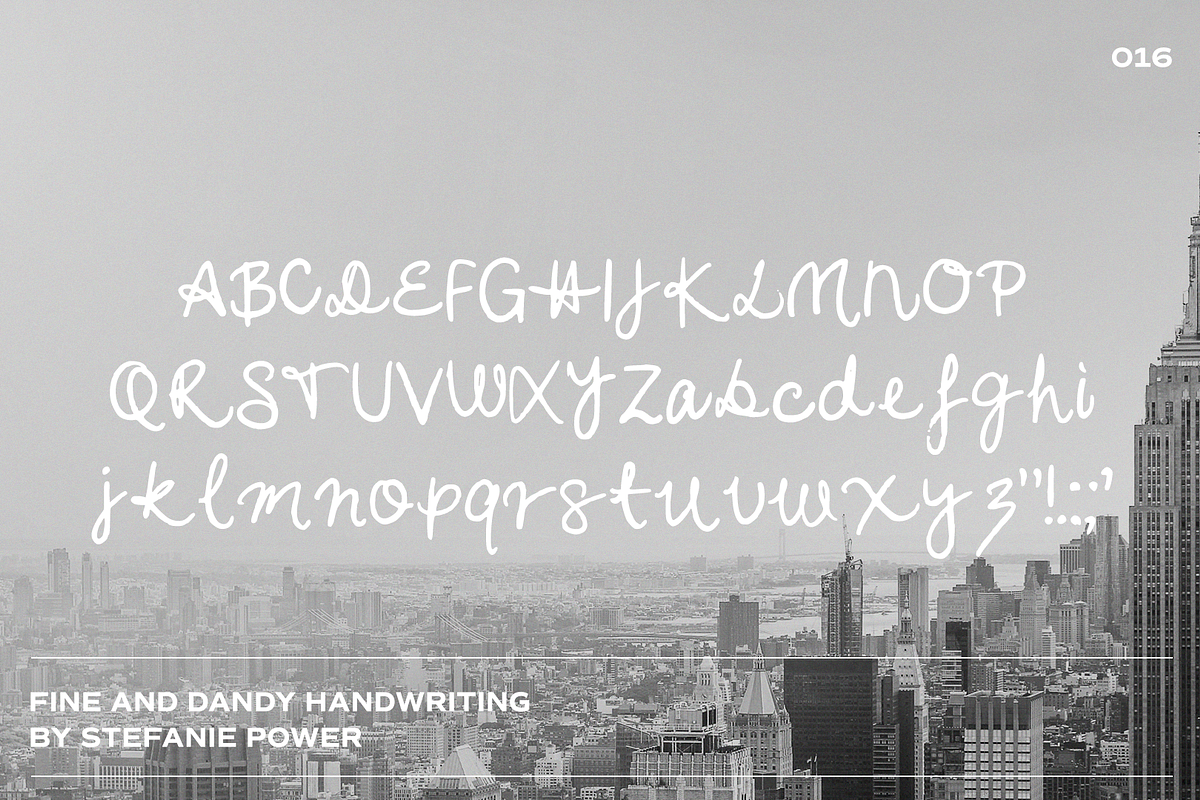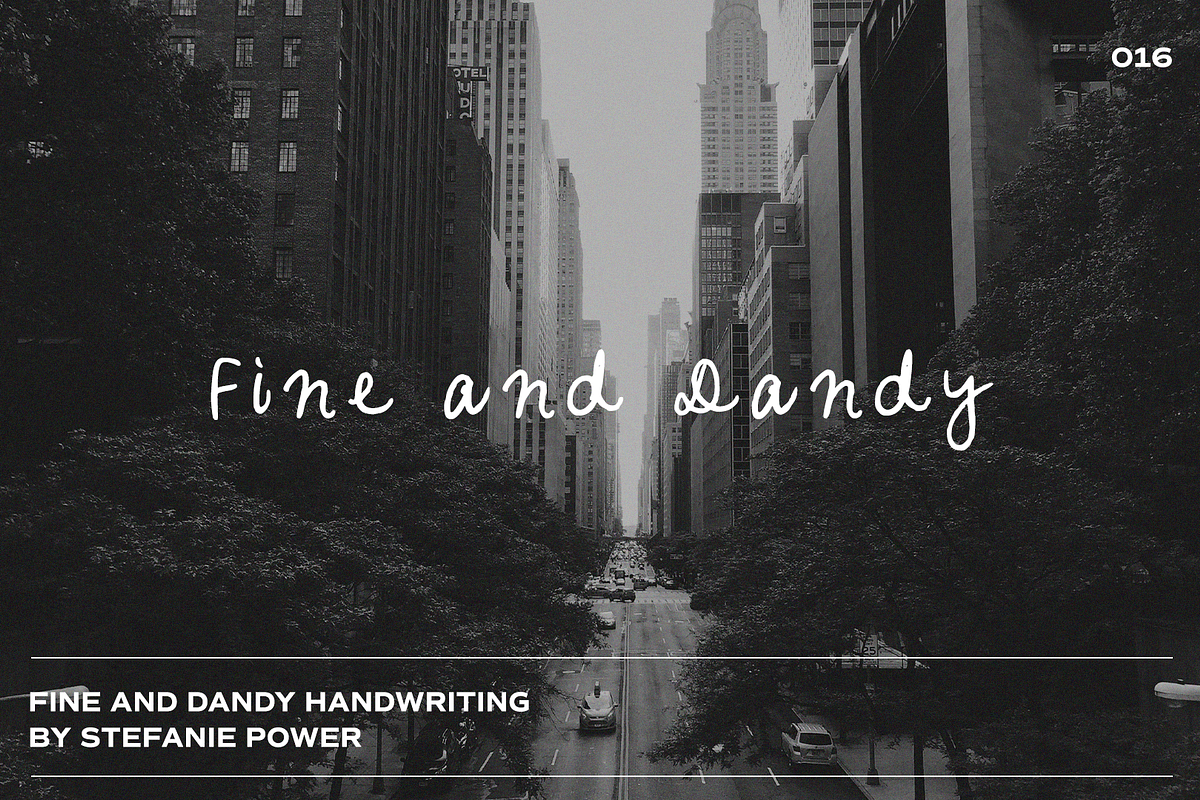
Fine and Dandy Handwriting | Font
Introducing 'Fine and Dandy' - the perfect dainty and petite font.
Fine and Dandy Handwriting • A handwritten script font containing upper & lowercase characters and a range of punctuation and numbers.